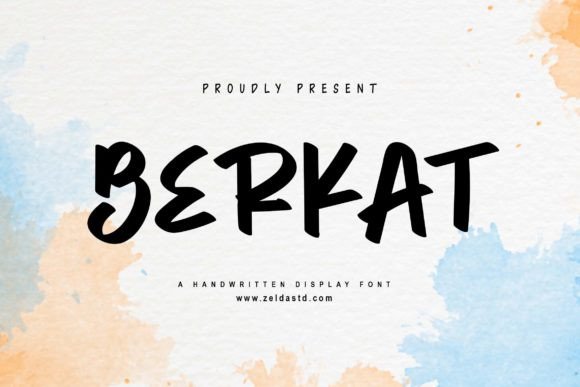
Prepare yourself to be mesmerized by the exquisite beauty of Berkat Font, an enchanting script font that will leave you spellbound. Designed with precision and a keen eye for detail, Berkat effortlessly captures the essence of sophistication and elegance, making it the ideal choice for those seeking to create a lasting impression.
Each stroke, each curve, each line of Berkat has been carefully crafted to exude a sense of luxury and refinement. Its fluid lines flow seamlessly, creating a visual masterpiece that will elevate your designs to new heights. With Berkat, your words will dance off the page, captivating your audience with their undeniable charm.
Step into the world of high-end branding and editorial design with Berkat Font as your trusted companion. Whether you're crafting a prestigious logo, designing an eye-catching magazine cover, or creating a luxurious invitation, Berkat will effortlessly elevate your work to the realm of the extraordinary.
With Berkat, you'll discover a world of endless creative possibilities. Unleash your imagination and let your ideas take flight as you witness your designs transform into masterpieces of art. Berkat is the key to unlocking your creative potential and leaving an indelible mark on your audience.
Join the ranks of discerning designers and creatives who have embraced the allure of Berkat Font. Experience the magic of this exceptional typeface and watch as your designs take on a life of their own. Berkat is more than just a font – it's an invitation to embark on a creative journey that will redefine your perception of beauty and elegance.